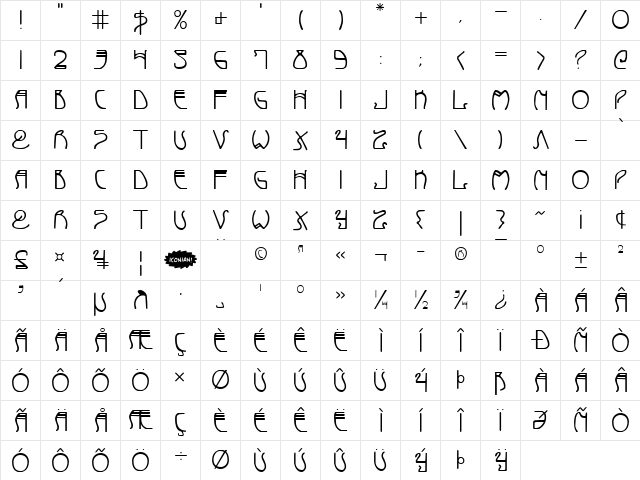
Coyote Deco Regular
Design Context for Coyote Deco Typeface
Coyote Deco is a composed and adaptable typeface that performs quietly and consistently across a wide range of design contexts.
Pro Tip: Use Coyote Deco in both headline and body roles to test its range before committing to a single application.